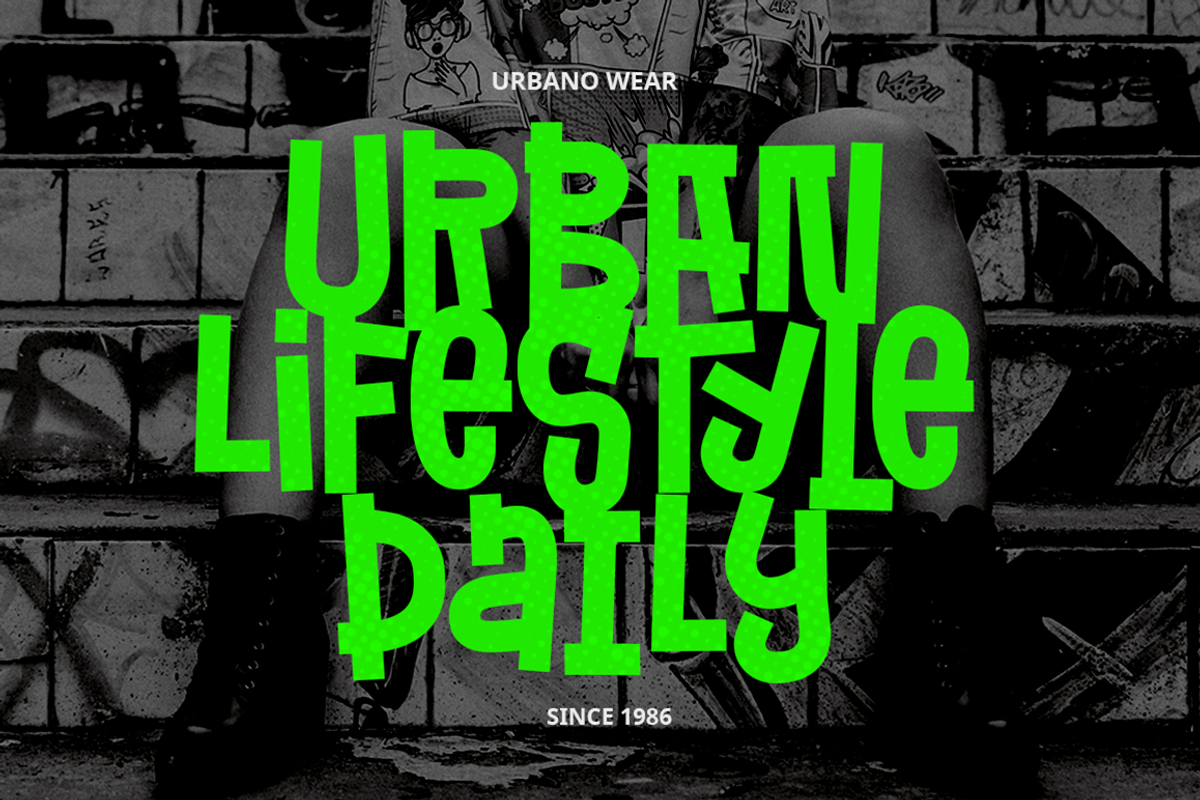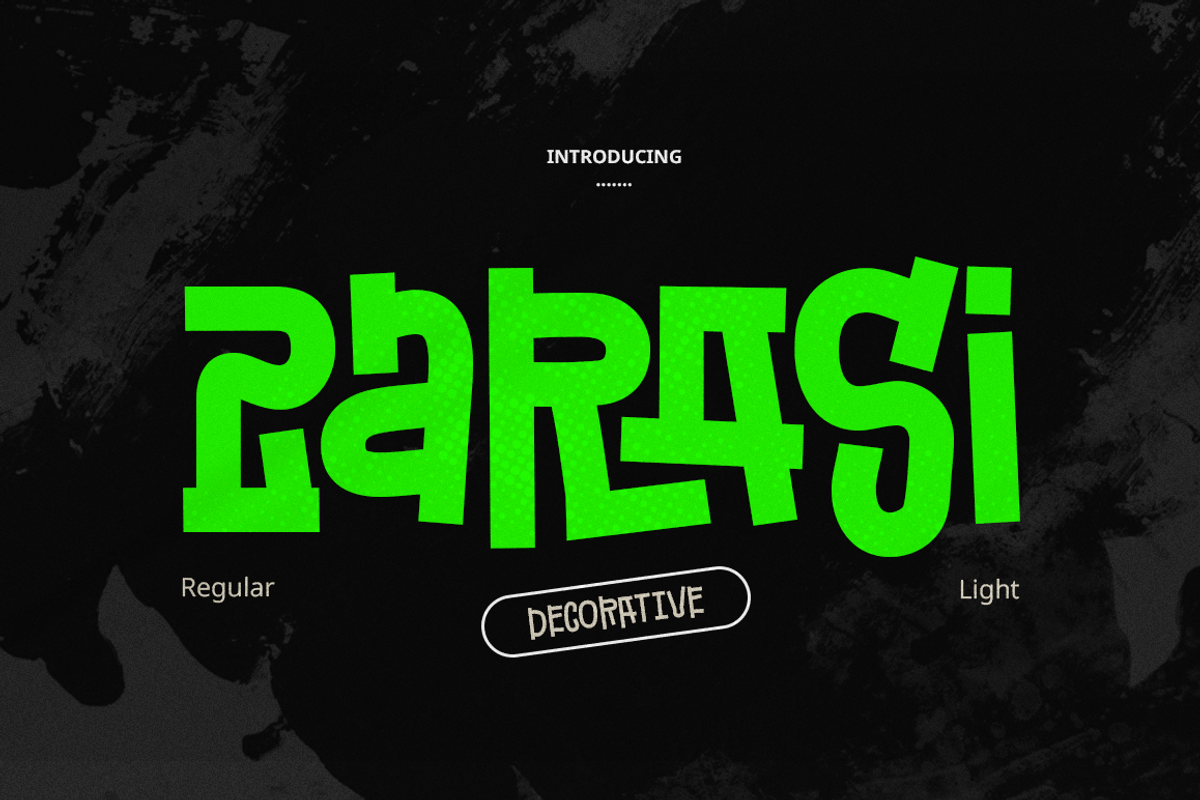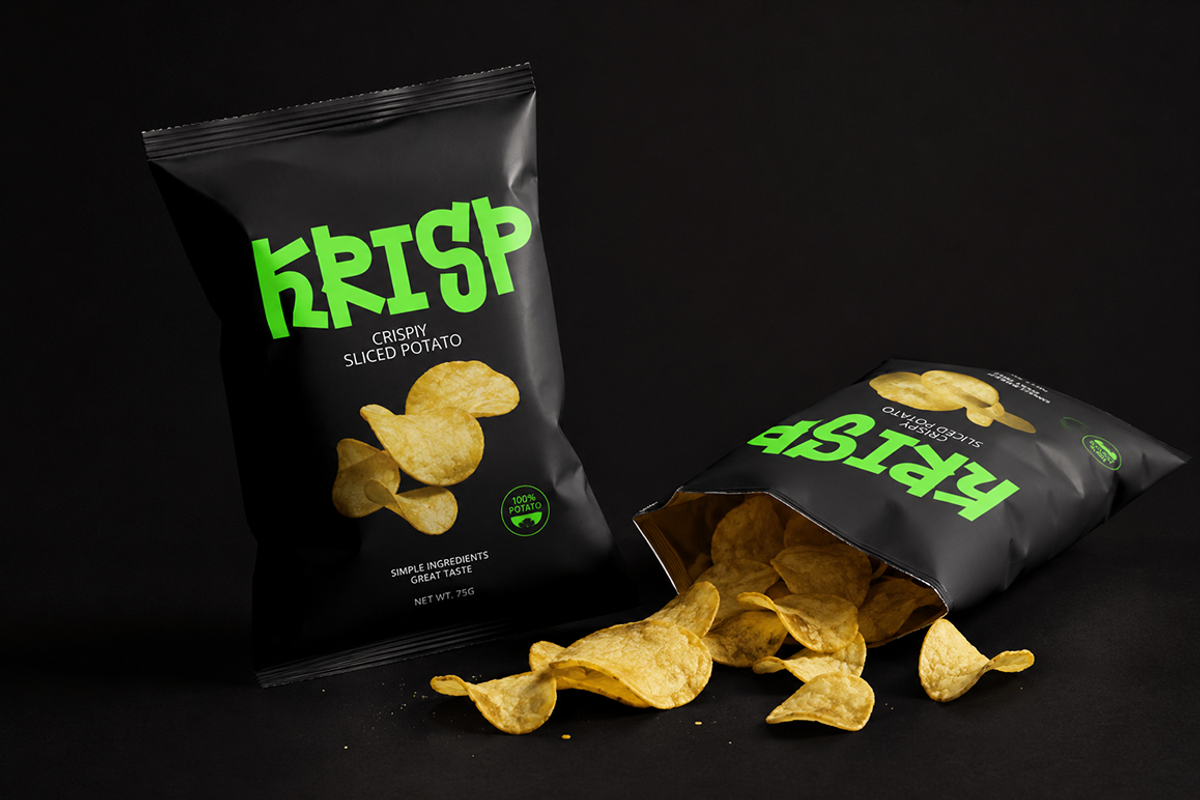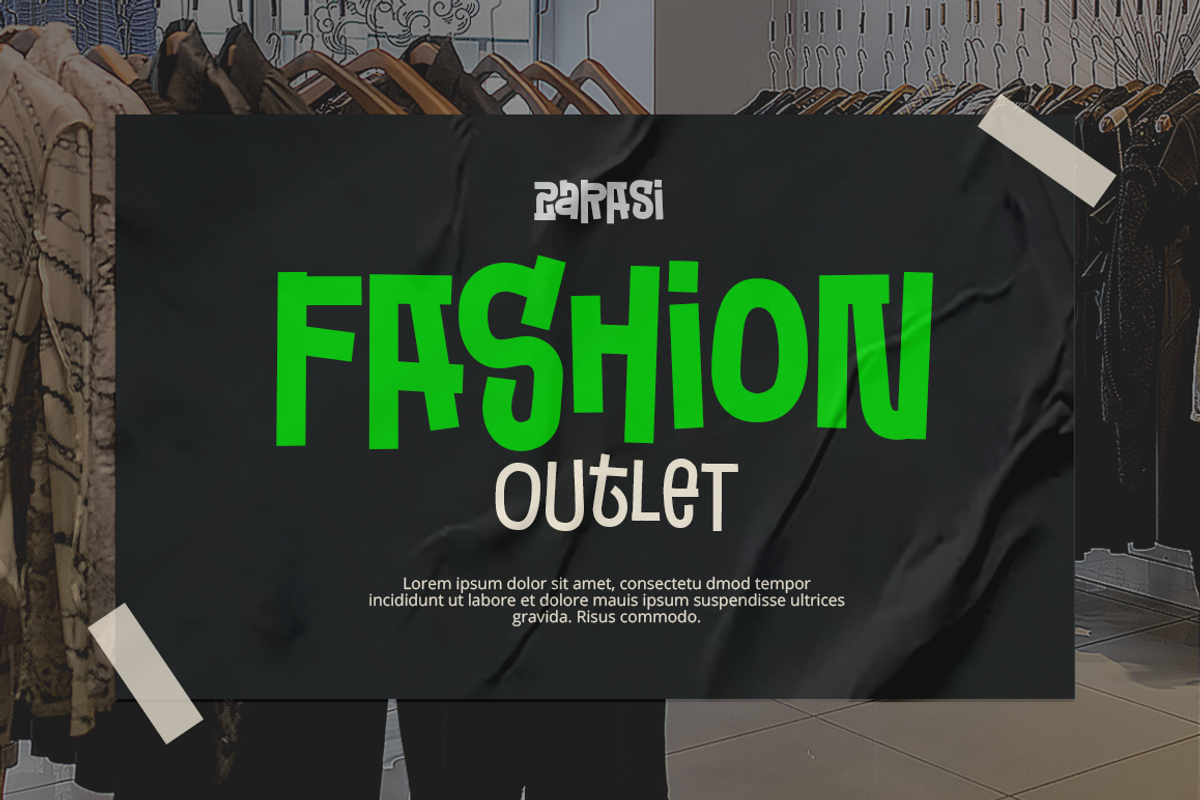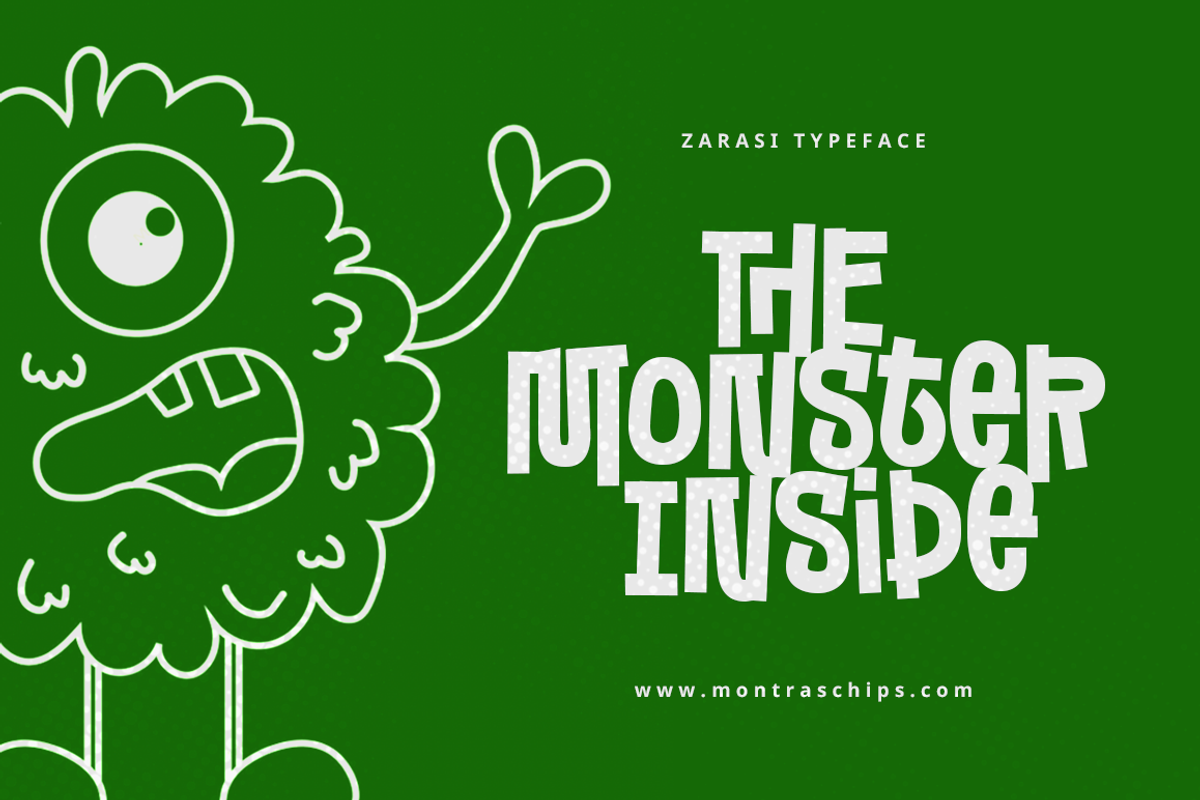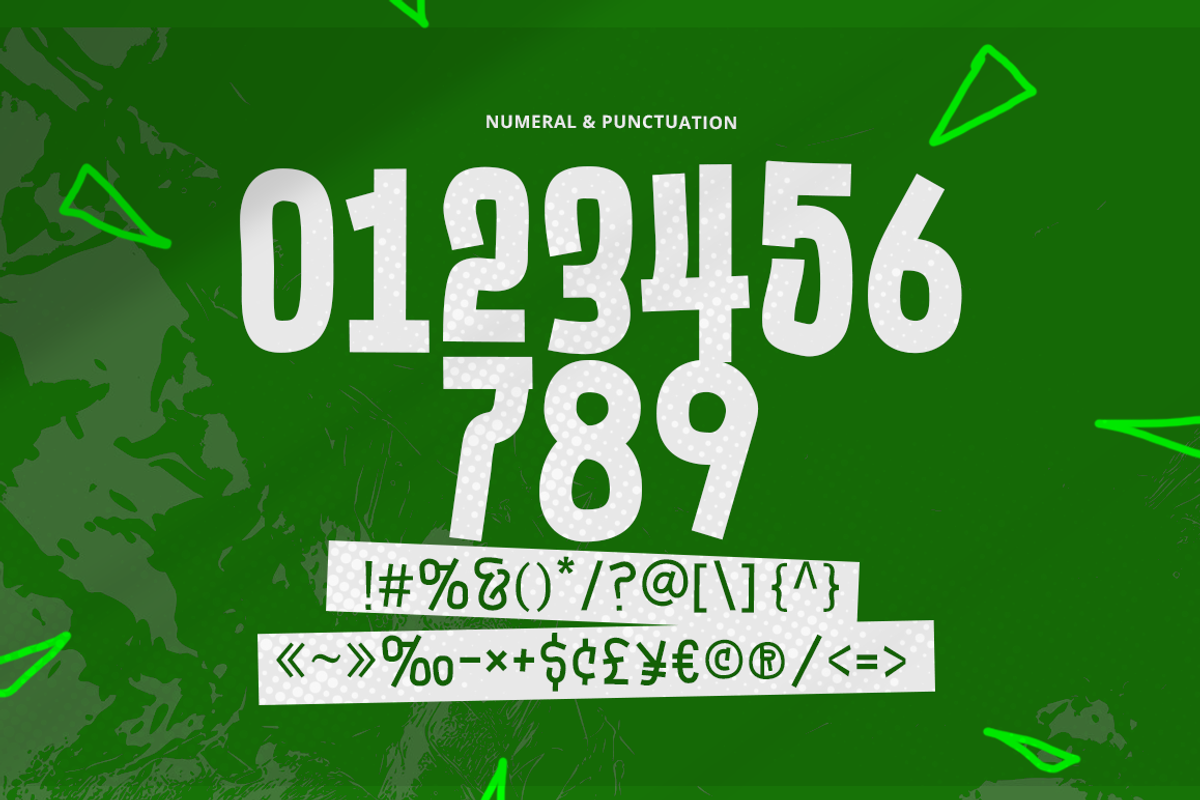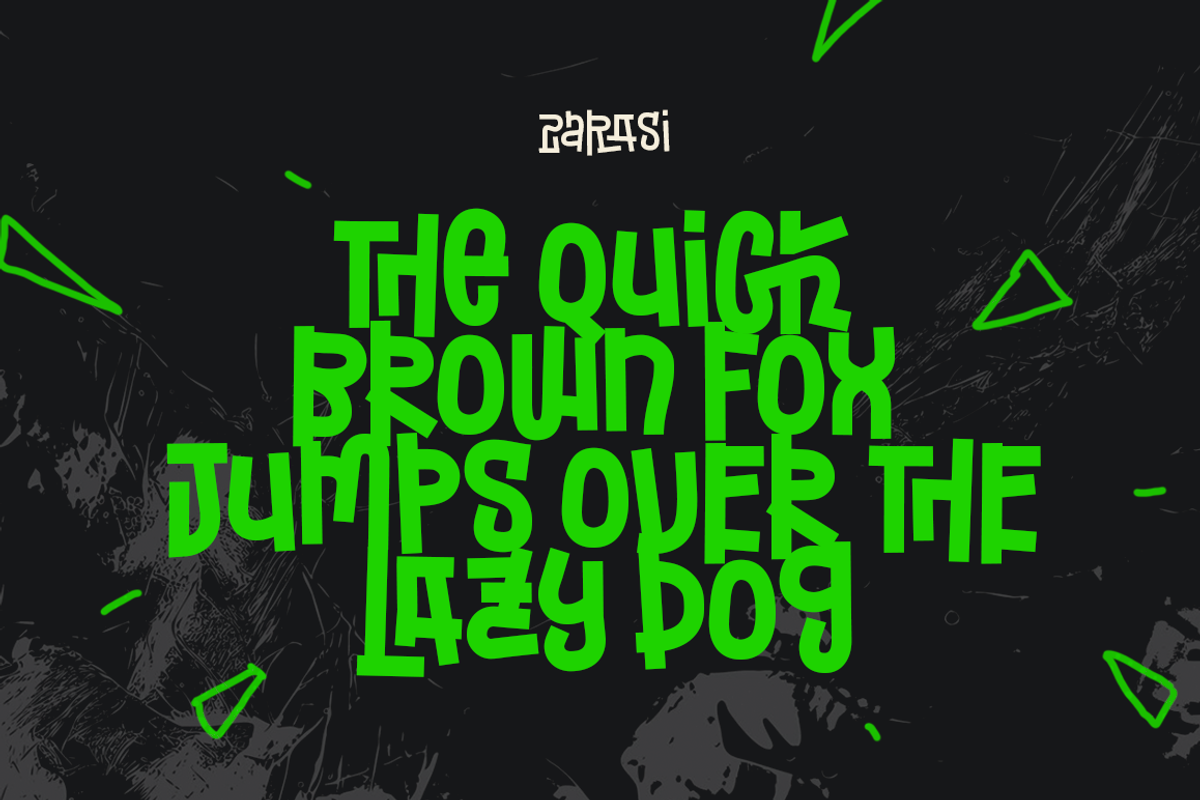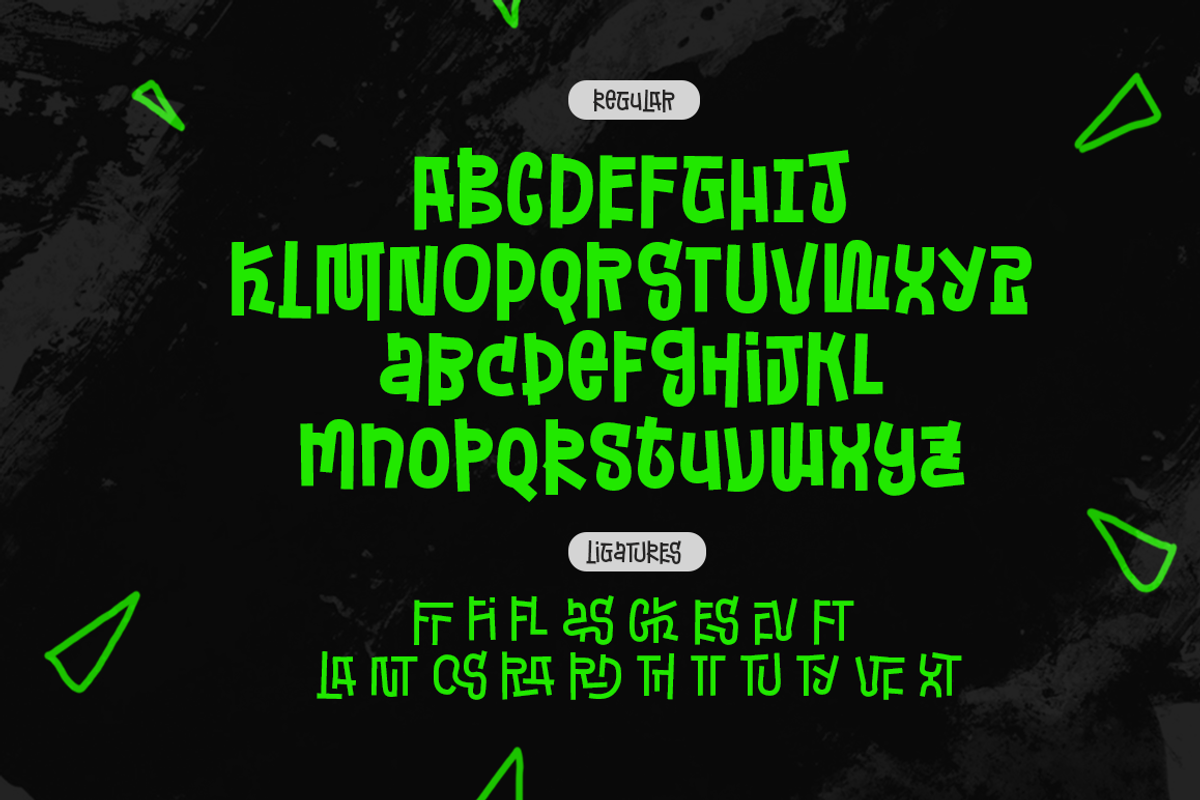
Zarasi Typeface
Zarasi is a bold decorative display font with a distinctive, funky personality inspired by urban culture and modern street style. Designed to stand out, it features Regular and Light styles along with stylish ligatures that creates a creative and eye-catching look. Whether you're designing striking headlines, memorable branding, unique logotypes, posters, or social media graphics, Zarasi delivers a fresh and expressive character that instantly grabs attention and gives every project a modern urban vibe.
Unique Decorative Font
More Ligatures pair
Modern Urban Style
Basic Latin Glyphs
Numeral and Punctuation
Currencies